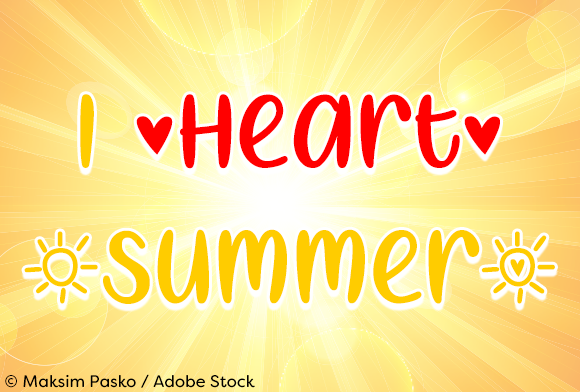
I Heart Summer Font
About I Heart Summer Font
I Heart Summer is a fun calligraphy font, perfectly crafted for your summer projects! This friendly font has a ton of cute style, and can add a relaxed look to your work.